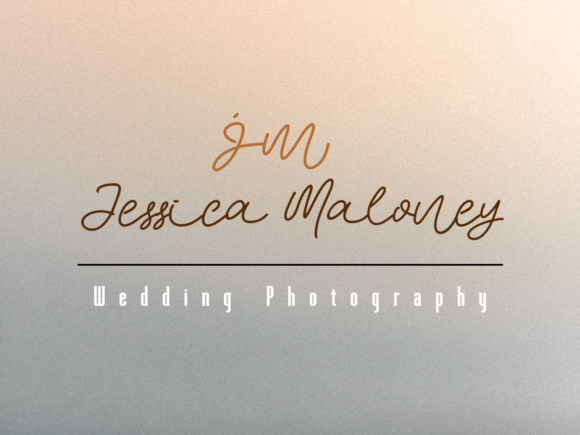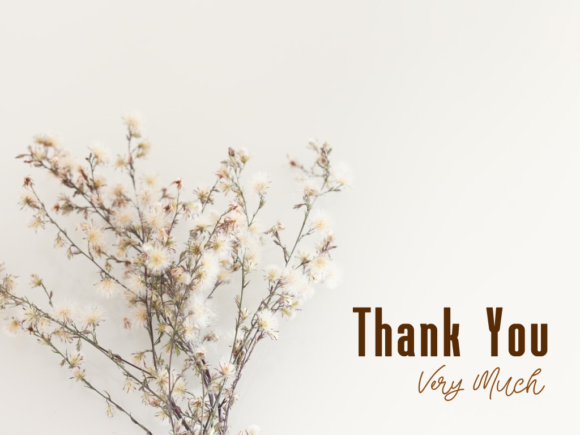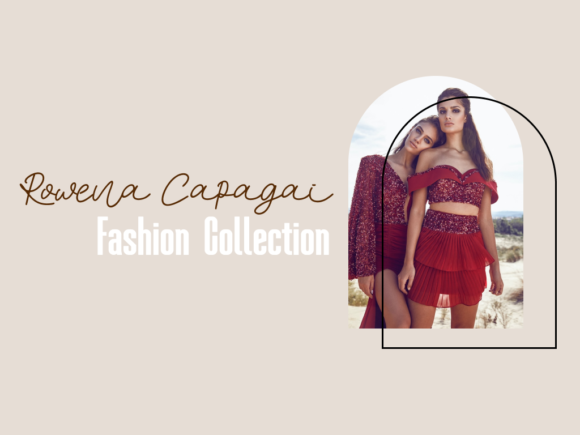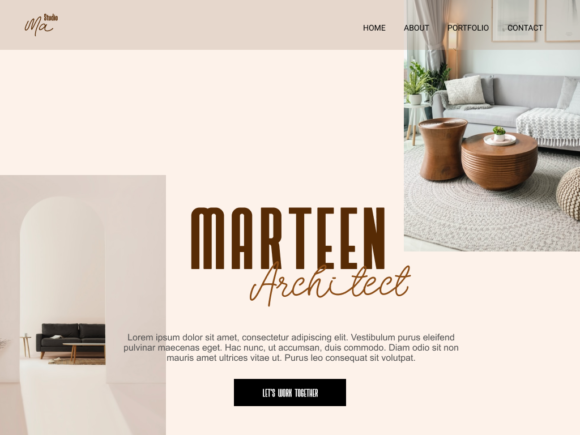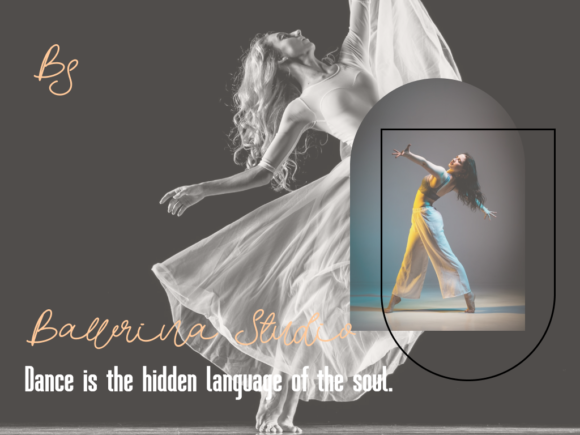
Introduction to Killara Rowanda Font
As I sat at my desk, surrounded by scraps of paper and paint-splattered canvases, I was stuck. My creative project was calling for the perfect font, but nothing seemed to be fitting the vibe. That’s when I stumbled upon the Killara Rowanda Font – and everything changed. This stunning duo of fonts is more than just a design resource; it’s a game-changer for any creative project.
The Killara Rowanda Font is a high-quality, free download that’s perfect for adding a touch of elegance and whimsy to your designs. With its transparent background, this font is incredibly versatile, allowing you to layer and combine it with other elements to create truly unique visuals. Whether you’re a seasoned designer or just starting out, this font is a valuable addition to your design toolkit.
- Unique characteristics include a modern, sans-serif design with a subtle flair, making it perfect for use in creative projects that require a touch of sophistication.
- Designed with a high level of detail, the Killara Rowanda Font is ideal for use in design projects where clarity and readability are essential.
Honest Review: Killara Rowanda Font
I recently came across the Killara Rowanda Font while searching for a high-quality design resource to enhance my creative project. After giving it a try, I’m excited to share my honest review with you.
Here’s what works well: ✨ The font is free to download, which is always a bonus. The transparent background allows for seamless integration with any design, making it a versatile choice. The overall aesthetic is modern and sleek, making it perfect for a variety of creative projects.
Some limitations I’ve noticed: ⚠️ While the font is free, it’s not suitable for commercial use. This might be a concern for some designers who plan to use it in a paid project. Additionally, the font family is relatively small, which may limit its applications.
Overall, I’m impressed with the Killara Rowanda Font. It’s a great design resource for personal projects, and the free download makes it accessible to designers of all levels. However, it’s essential to consider the limitations before deciding to use it in a commercial project.
- Pros: free download, transparent background, modern aesthetic
- Cons: not suitable for commercial use, limited font family
To get the most out of the Killara Rowanda Font, be sure to experiment with different font sizes, colors, and combinations. You can also use the font in conjunction with other design elements, such as graphics and images, to create a unique and eye-catching look.
Common Use Cases for the Killara Rowanda Font
The Killara Rowanda Font is a versatile design resource that can be used in a wide range of creative projects, from branding and marketing materials to digital art and graphic design. Its transparent background and high-quality aesthetic make it a great choice for designers looking to add a touch of sophistication to their work.